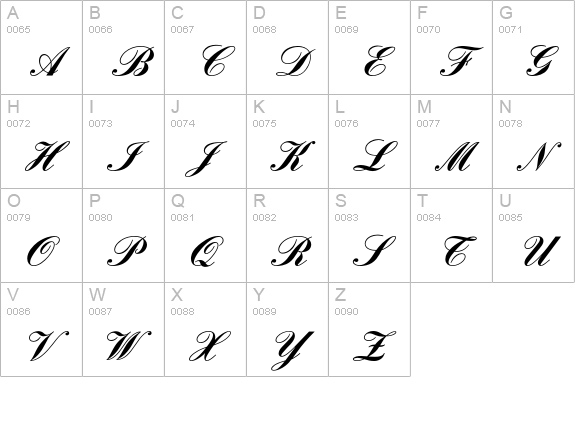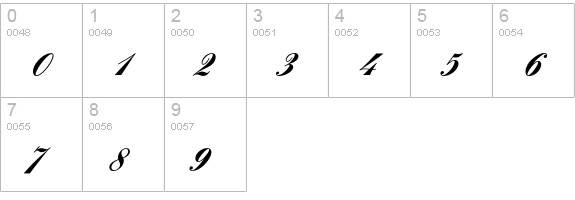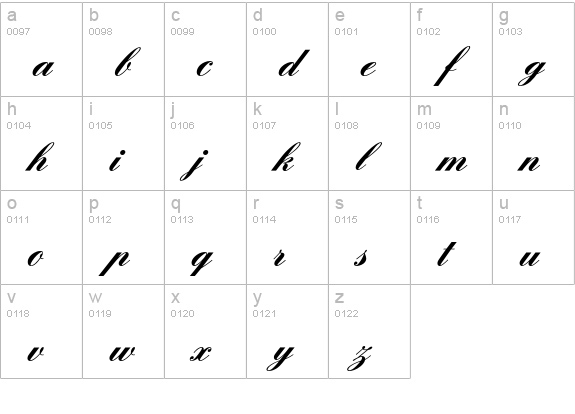
Englische Schreibschrift 2 VERSION ROMAIN Bold Font Details
Englische Schreibschrift 2 VERSION ROMAIN Bold is a strong, high-contrast variant in the Englische typeface family \xE2\x80\x94 well suited to headlines, attention-grabbing titles, and strong calls-to-action.
Englische Schreibschrift 2 VERSION ROMAIN Bold font is a stunning display typeface that exudes elegance and sophistication. Its bold and dynamic strokes make a powerful statement, perfect for headlines, titles, and other prominent design elements. This font captures the essence of traditional calligraphy with a modern twist, adding a touch of timeless beauty to any project. Best of all, Englische Schreibschrift 2 VERSION ROMAIN Bold font is available for free download at FontsMarket.com. Whether you're a professional designer or a hobbyist looking to add a touch of class to your creations, this font is sure to elevate your work to the next level. Download it today and unleash your creativity with this exquisite typeface.